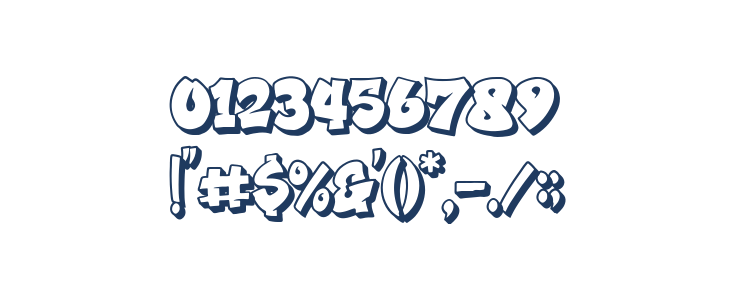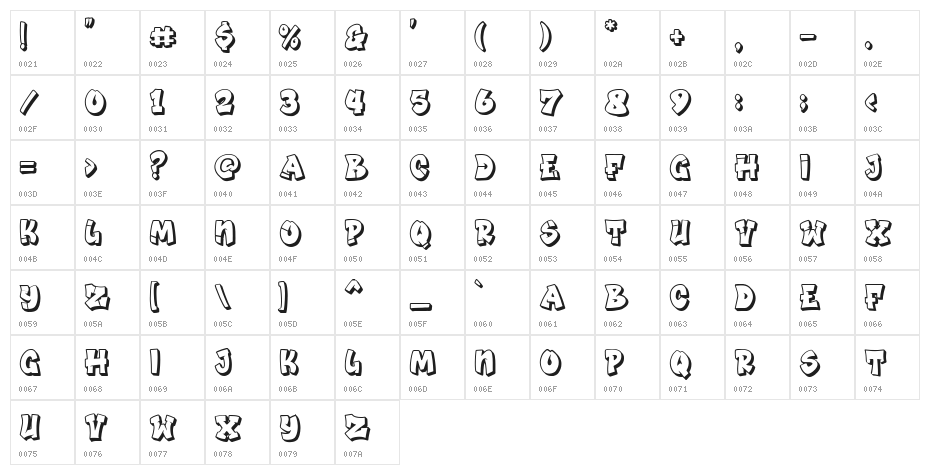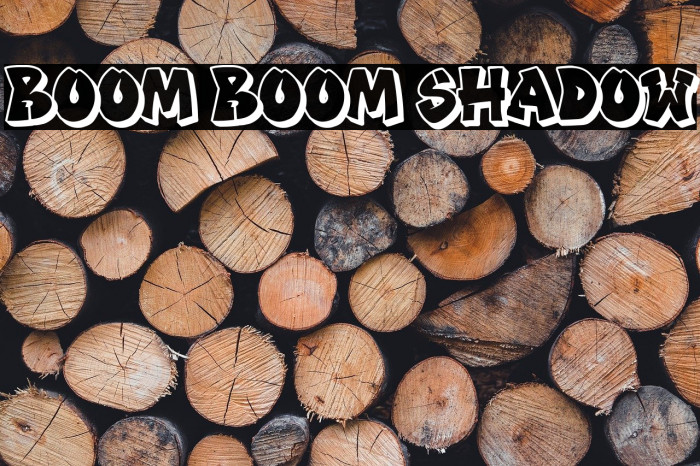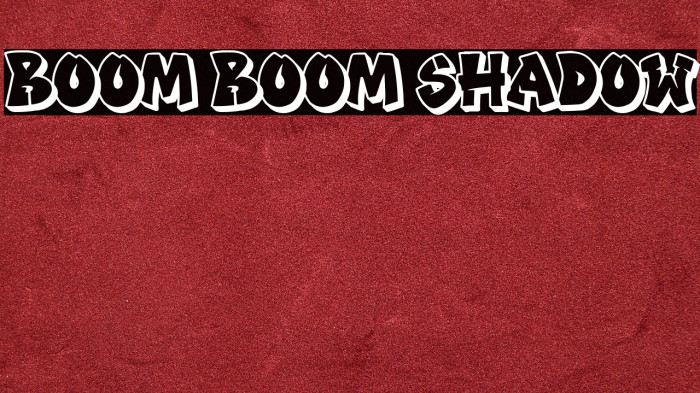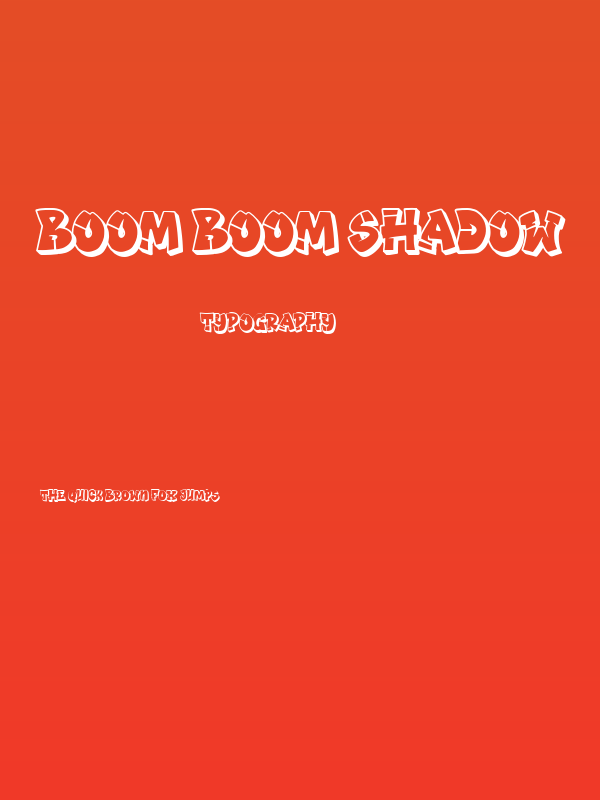
Boom Boom Shadow Font
Boom Boom Shadow Description
This font features a bold and playful design with a distinct shadow effect that gives it a three-dimensional appearance. The characters are thick and rounded, with exaggerated curves and angles that add to its dynamic and energetic feel. The shadowing creates a sense of depth, making each letter pop off the page. This style is reminiscent of graffiti or comic book lettering, with a fun and informal vibe. The font is highly legible, even at smaller sizes, due to its clear and defined shapes. The numbers and special characters maintain the same playful and bold aesthetic, ensuring consistency across all text elements.
| Overall Style | Playful, Energetic, Comic |
| Use Case | Headlines, Posters, Branding |
| Proposed Projects | This font is perfect for projects that require a fun and lively touch, such as children's book covers, comic strips, event posters, or branding for playful products. |